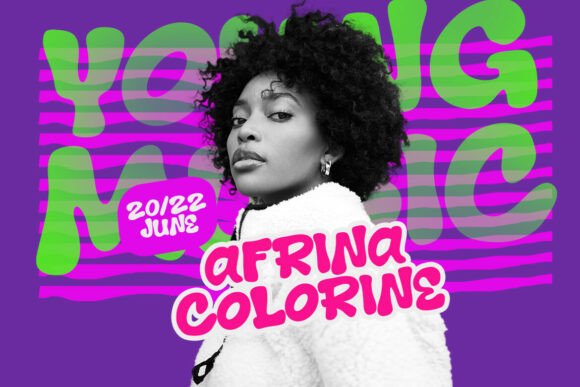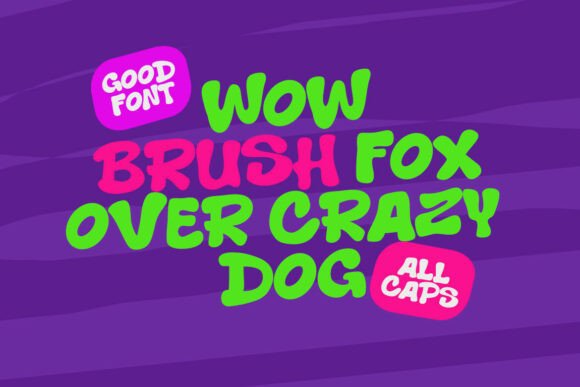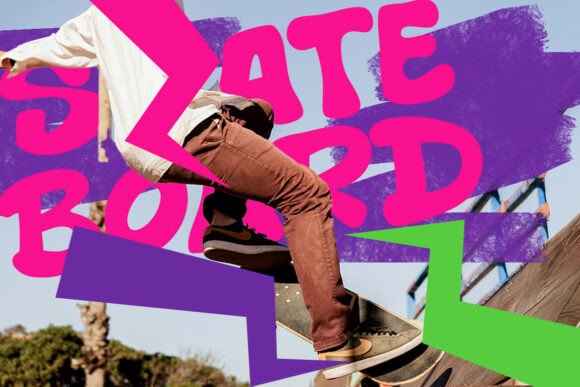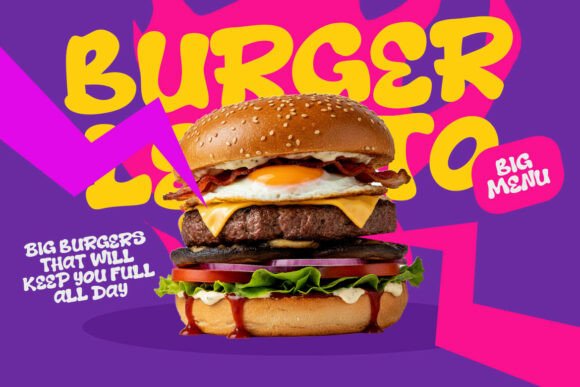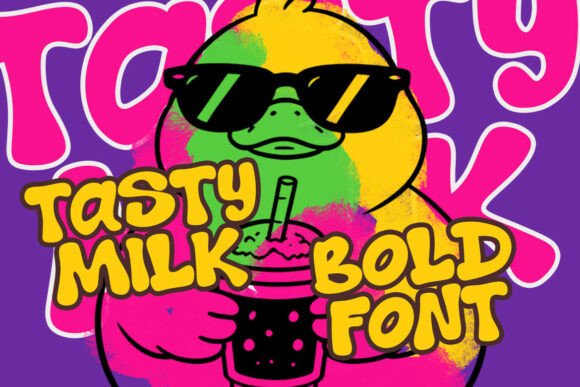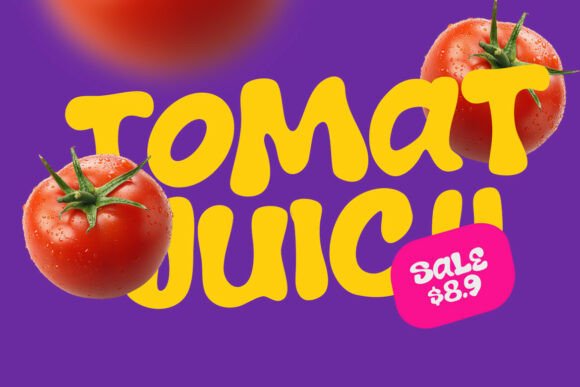
Introduction to Sarko Brush Font
Have you ever been stuck in a creative rut, searching for that perfect font to elevate your design? Maybe you’ve been scrolling through design resources, trying to find a font that captures the playful vibe of your project. Well, we’re here to introduce you to the star of the show: Sarko Brush Font. This bold and energetic display typeface is sure to add a spark to your next creative project.
With its thick, rounded strokes and organic, hand-drawn feel, Sarko Brush Font is the perfect addition to any design arsenal. Whether you’re working on a high-impact poster, a social media graphic, or a branding project, this font’s bouncy baseline and fluid curves will create a sense of movement and fun that’s hard to resist. And the best part? It’s available for a free download, so you can get started on your next project today!
As a valuable resource for designers, Sarko Brush Font offers a unique combination of high quality and versatility, making it an ideal choice for a wide range of creative projects. Its friendly and approachable vibe, paired with excellent legibility in large-scale applications, ensures that your design will stand out from the crowd. So why settle for a generic font when you can add some personality to your project with Sarko Brush Font?
Key Features of Sarko Brush Font
- High-quality design resource ideal for creative projects, offering a unique and artistic touch.
- Features a bold, brush-style design, perfect for adding a creative and dynamic feel to any project.
- Designed to be versatile, the Sarko Brush Font can be used for a wide range of creative projects, from logos and branding to digital art and typography.
Honest Review: Sarko Brush Font
I recently stumbled upon the Sarko Brush Font, and I must say it’s a great addition to any design resource library. This high-quality font is perfect for creative projects that require a touch of whimsy and personality.
- ✨ Unique brush-style lettering that adds a personal touch to any design
- ✨ High-quality vectors that make it perfect for printing or digital use
- ✨ Transparent background option, making it easy to layer over other design elements
- ⚠️ Limited font sizes available, which may limit its use in certain design applications
- ⚠️ Some users may find the brush strokes to be a bit uneven or inconsistent, which could affect the overall aesthetic of a design
Overall, I’m really impressed with the Sarko Brush Font. It’s a great free download that can add a lot of character to a design. While it may have some limitations, the benefits far outweigh the drawbacks. I’d definitely recommend it to any designer looking to add a bit of personality to their creative project.
Tips for Getting the Most Out of Sarko Brush Font
For optimal results, use Sarko Brush Font in conjunction with other design elements, such as images and graphics. Experiment with different font sizes and styles to create a unique and eye-catching design.
Common Use Cases for Sarko Brush Font
The Sarko Brush Font is ideal for creative projects, such as graphic design, typography, and visual arts. It’s also great for personal projects, like creating unique business cards or social media graphics.